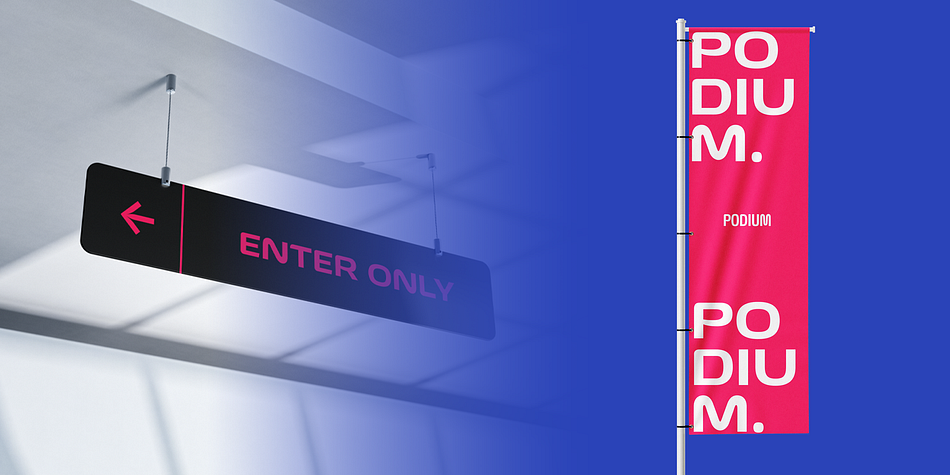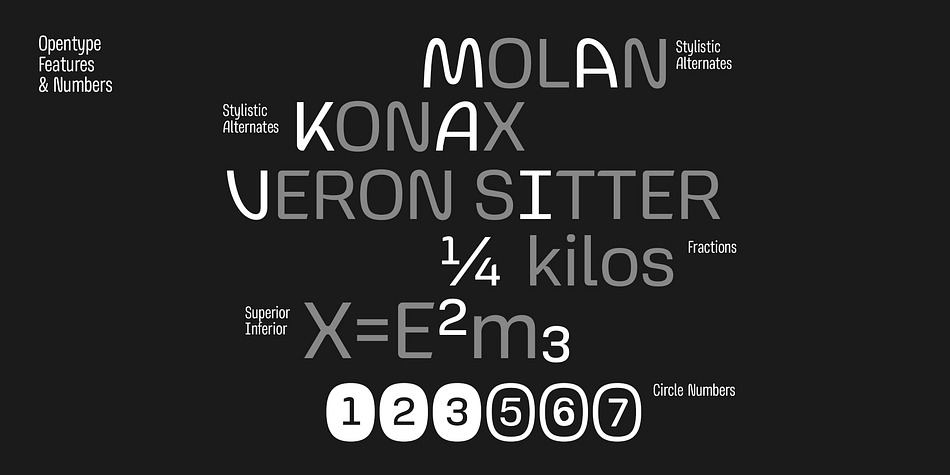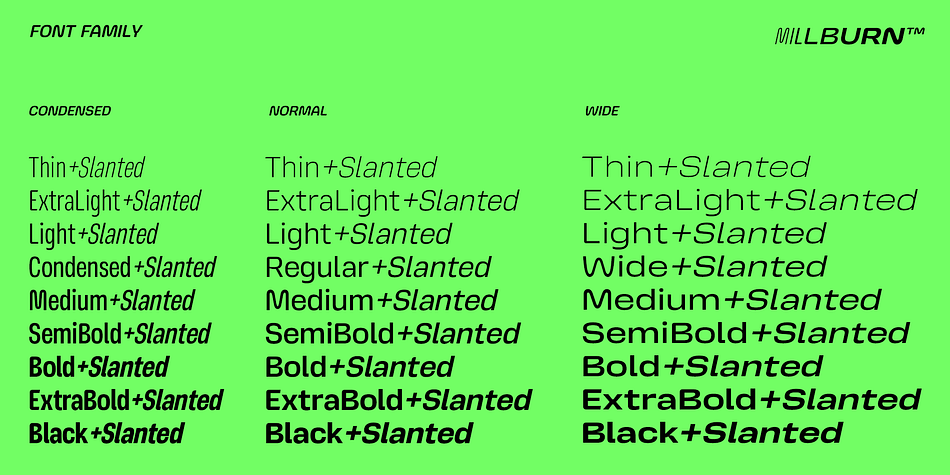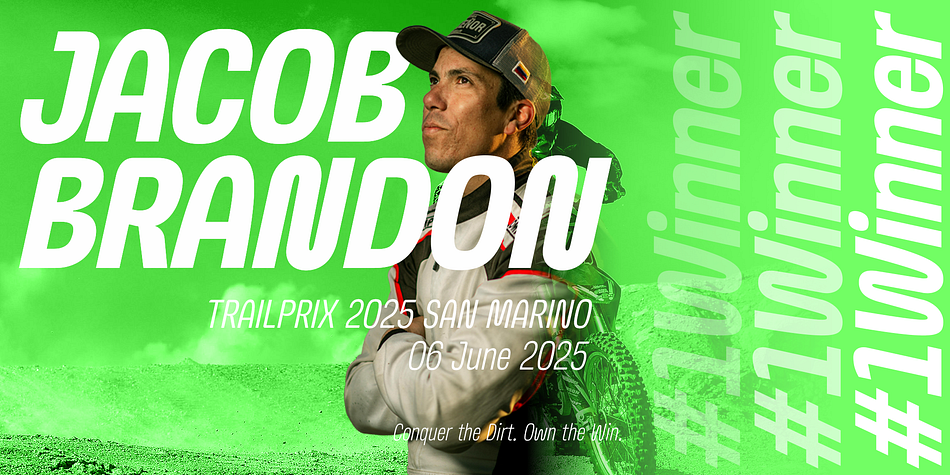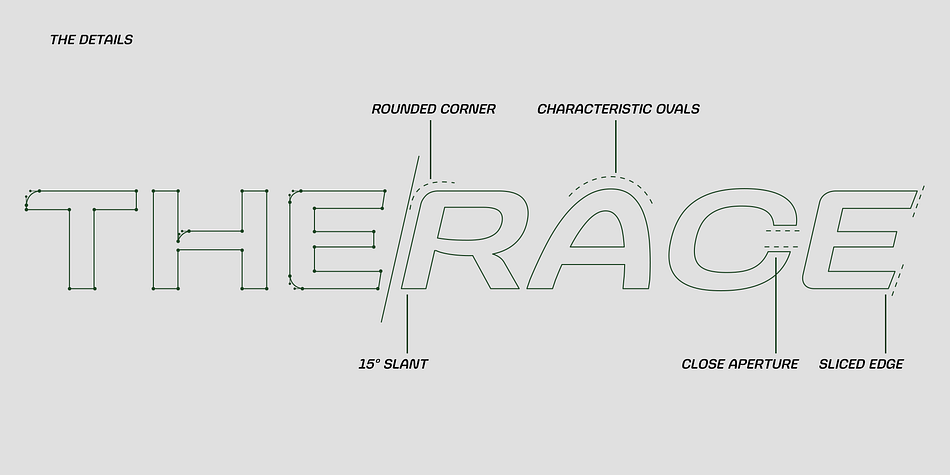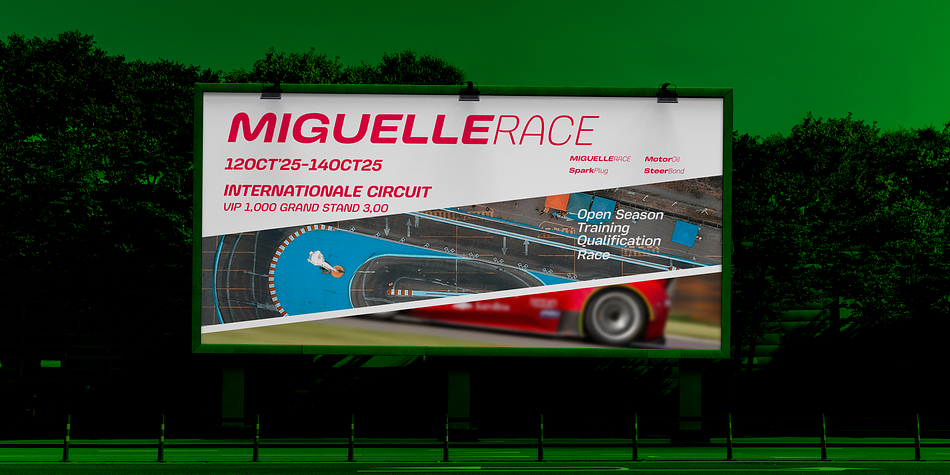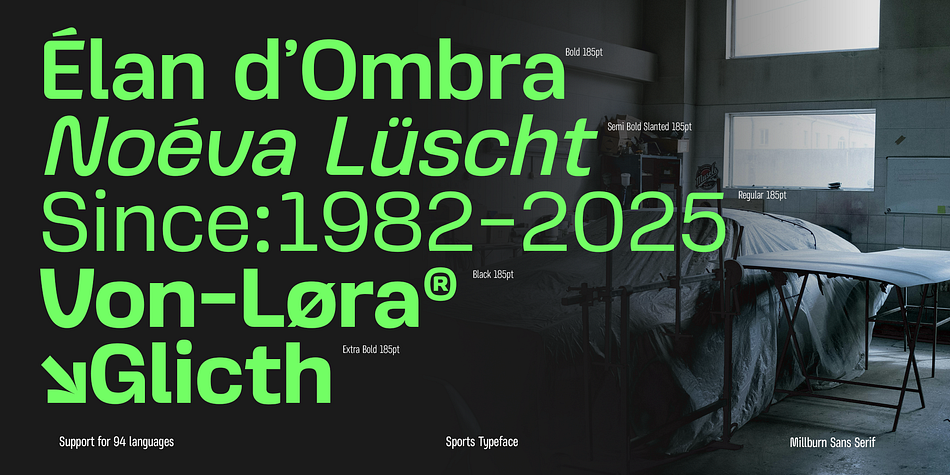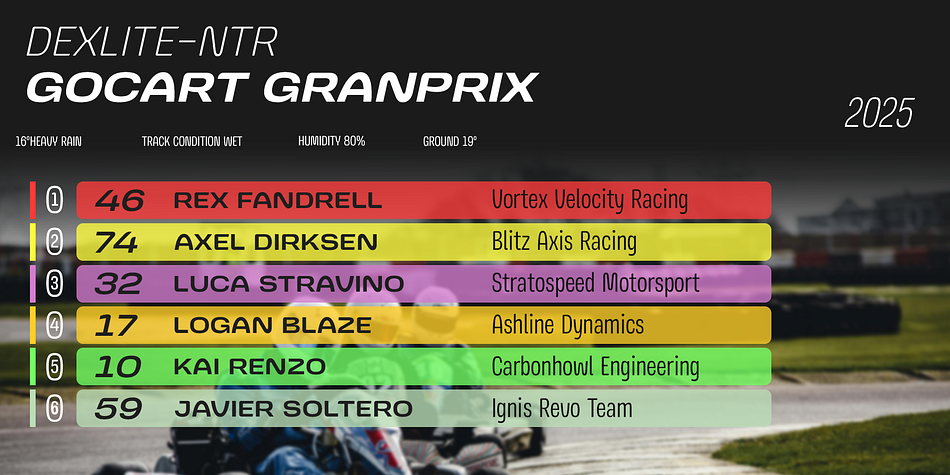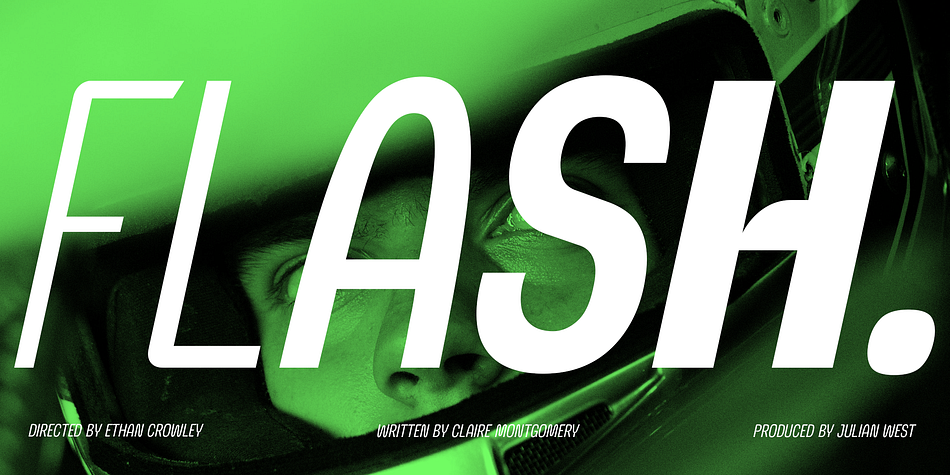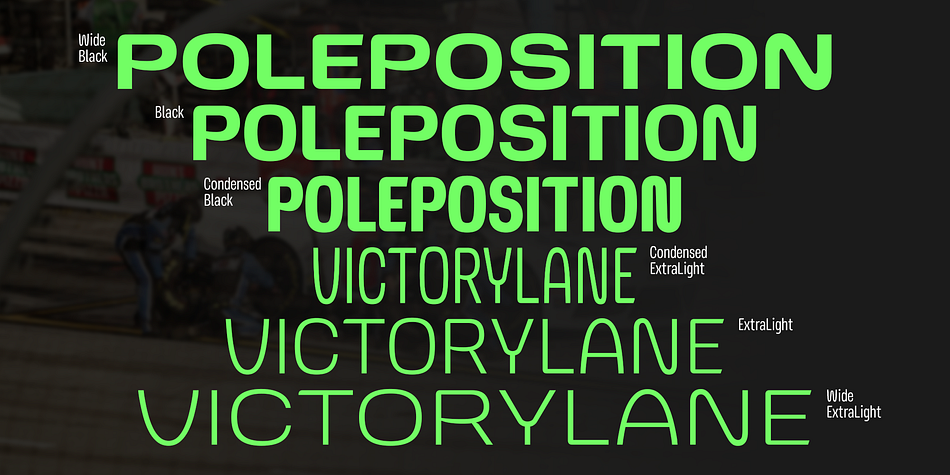
JT Millburn
Designed by Laire Pawenang, JT Millburn is a sans serif font family. This typeface has fifty-five styles and was published by Jolicia Type.
JT Millburn is a dynamic variable typeface inspired by the precision and speed of motorsport aesthetics. Designed with versatility in mind, JT Millburn features three variable axes—Weight, Width, and Slant—allowing designers to fine-tune the style to suit a wide range of creative applications.
With a 15° slant angle, JT Millburn brings a sense of motion and energy, perfect for sports branding, automotive design, or bold editorial headlines. This type family includes a total of 54 styles, making it a powerhouse for creating distinctive, flexible layouts.
JT Millburn supports over 90 languages and includes 493 glyphs. For added visual flair, stylistic alternates are available for key uppercase characters: A, I, K, and V, providing even more typographic expression.
Whether you’re designing for print or digital, JT Millburn offers high-performance functionality with a strong, contemporary voice.